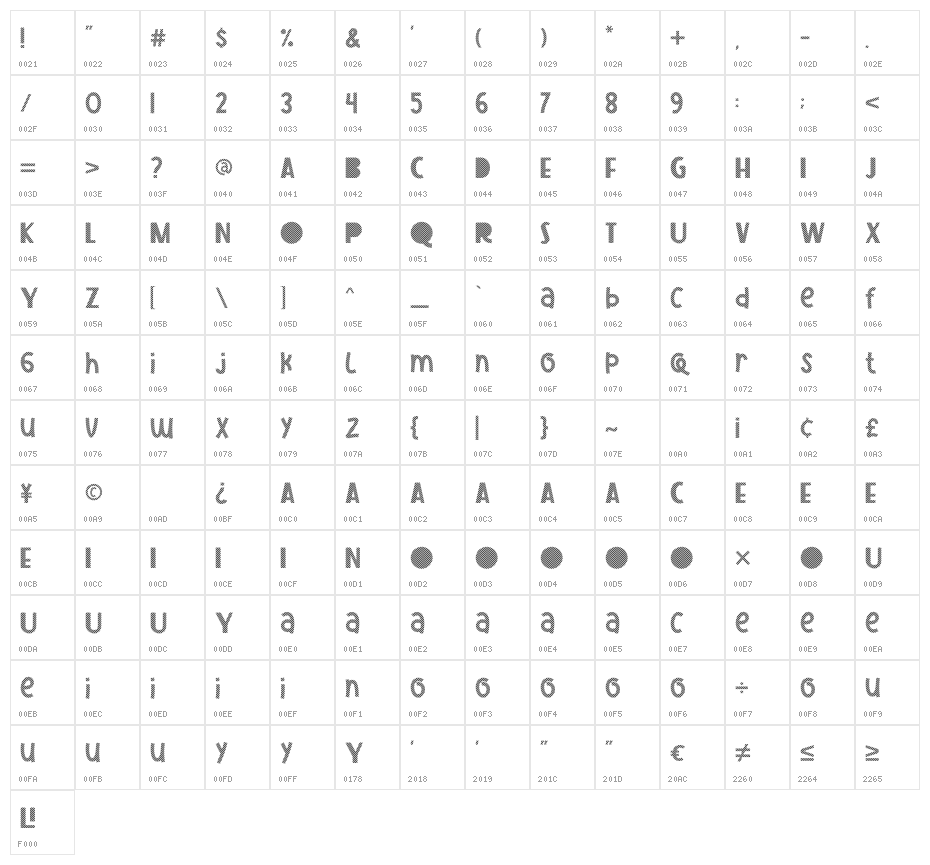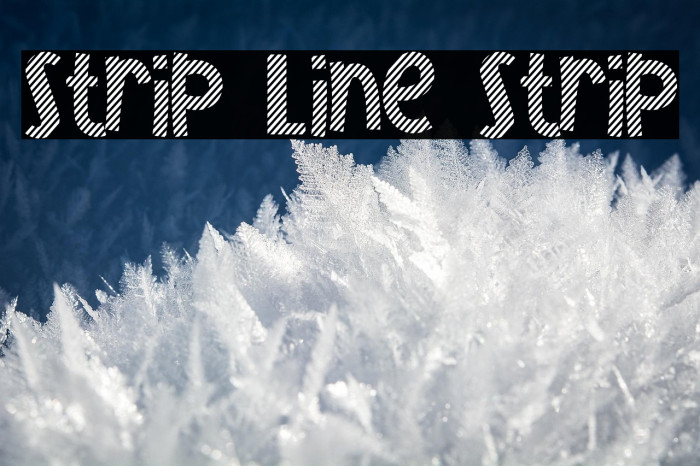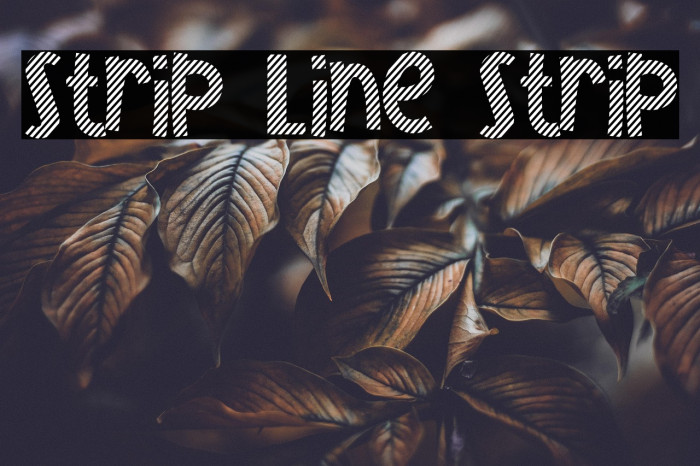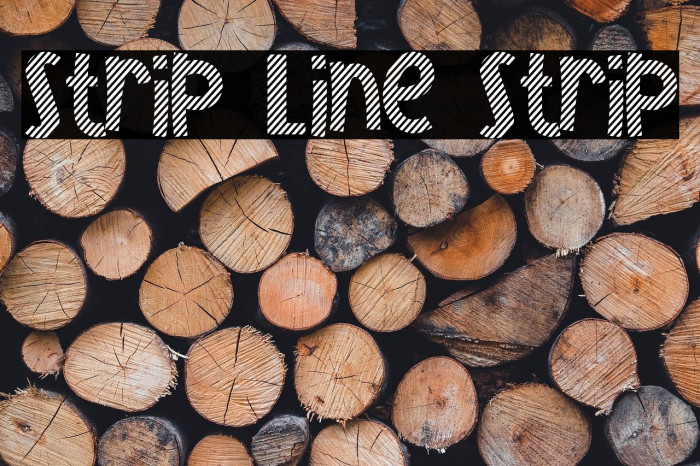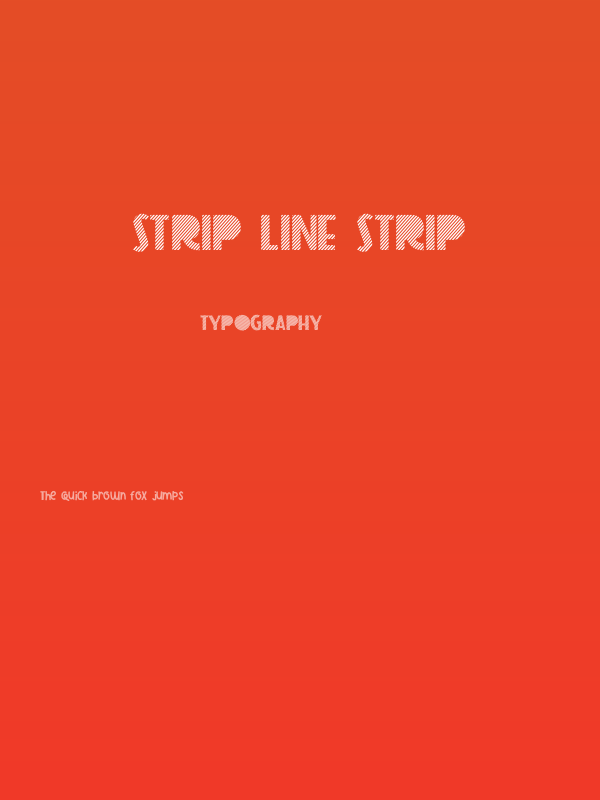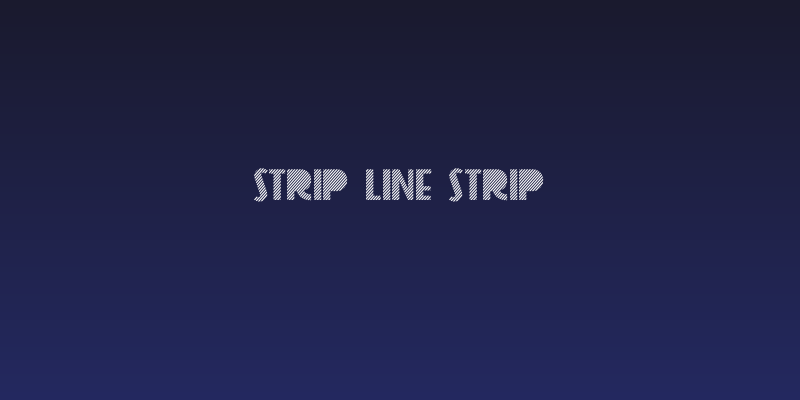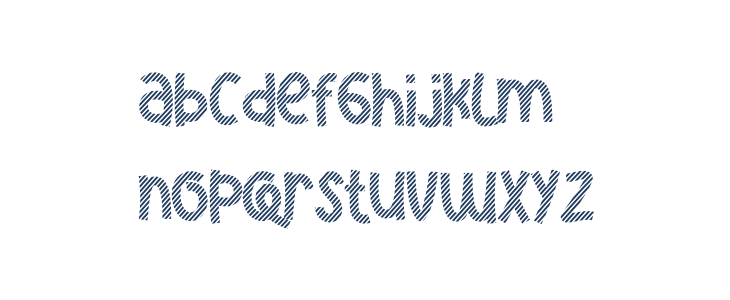
Strip Line Strip Font
Strip Line Strip Description
This font features a unique design with diagonal striping across each character, creating a dynamic and textured appearance. The uppercase and lowercase letters are bold and geometric, with a modern flair that is both eye-catching and distinctive. The numerals and special characters maintain the same striped pattern, ensuring consistency throughout the typeface. The overall style is decorative, making it ideal for projects that require a bold statement or a creative touch. The font's design is well-suited for digital and print media, where it can add a layer of visual interest.
| Overall Style | Modern, Decorative |
| Proposed Projects | Ideal for branding, posters, headlines, and creative digital designs. |